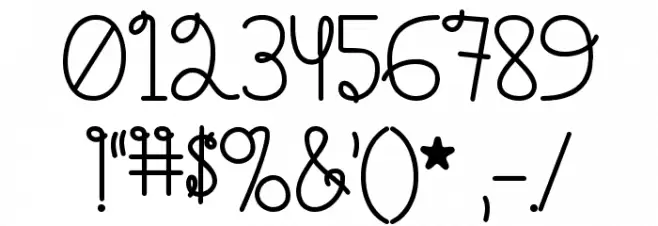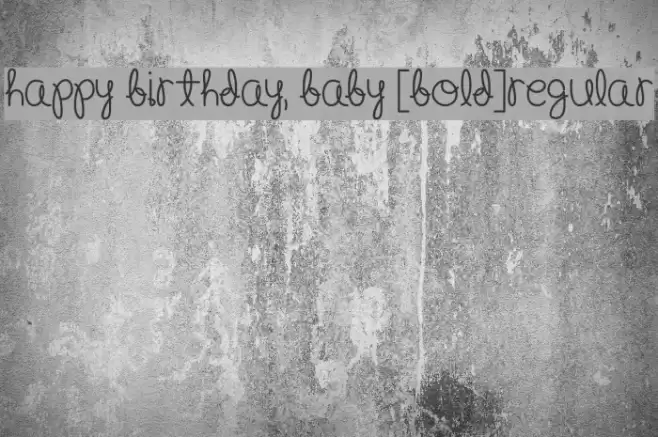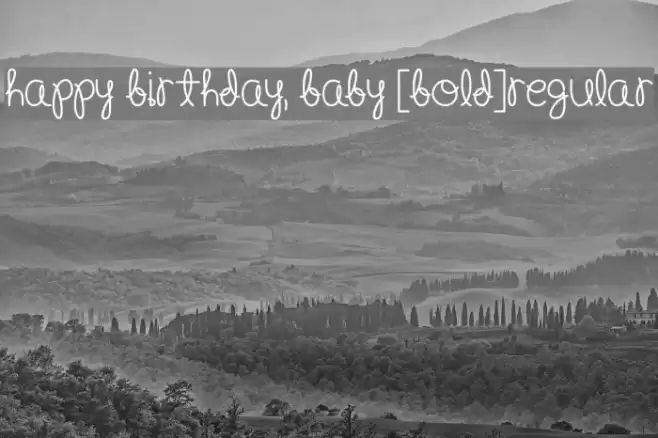
Happy Birthday, Baby [Bold]Regular Font
Happy Birthday, Baby [Bold]Regular Description
This playful and whimsical font features a handwritten style with a unique, flowing appearance. Each character is crafted with a sense of fun and creativity, incorporating loops and curls that add a lively touch. The letters are evenly spaced, maintaining a consistent rhythm across the text. The font's rounded edges and smooth curves give it a friendly and approachable feel, making it ideal for projects that require a personal or informal tone. Its distinctive style is perfect for adding a touch of personality and charm to any design.
A playful, handwritten font with loops and curls, offering a whimsical and friendly style from Uncategorized fonts.
- Proposed Projects: Ideal for greeting cards, invitations, children's books, and playful branding projects.
- Overall Style: Playful
- Use Case: Greeting cards, Invitations, Children's books